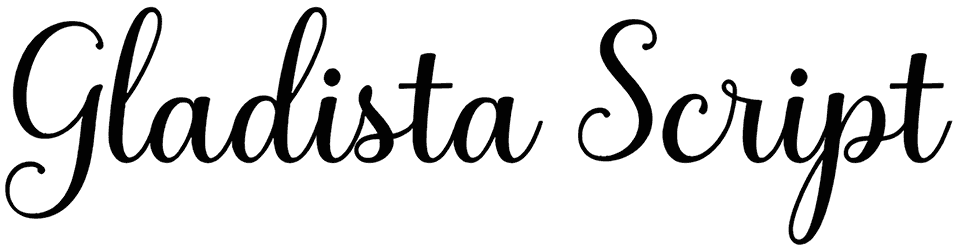
Gladista Script Font
Get ready to draw everyone’s attention to your typography project with the help of this calligraphy font. It can bring a luxurious and elegant look to your books, magazines, logos, and so on. Grab Gladista Script font without a second thought, and to reach more of this category, browse our website.